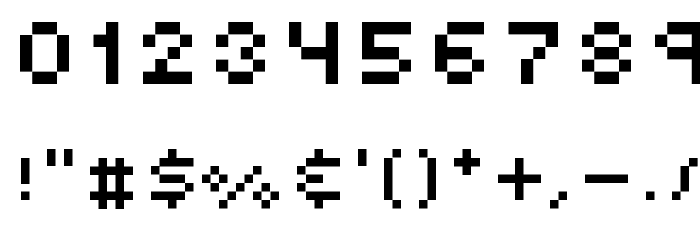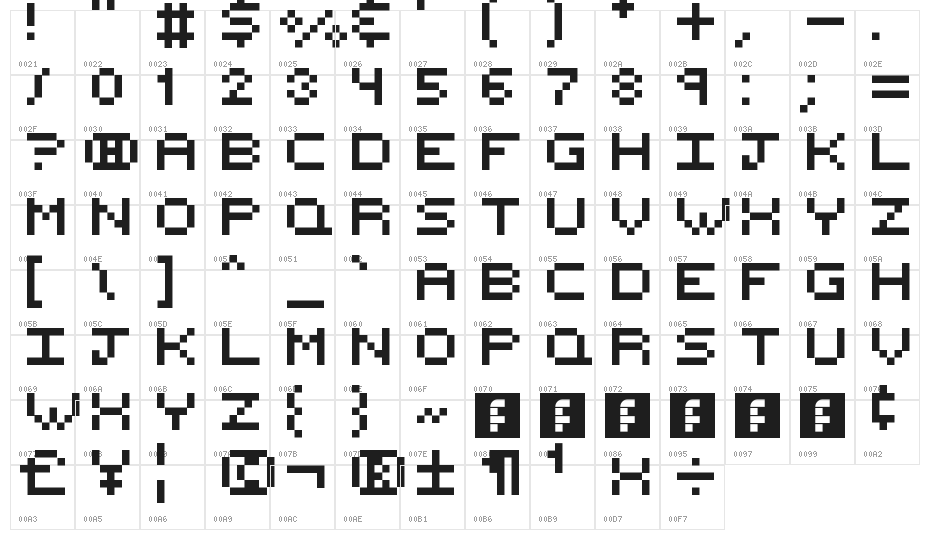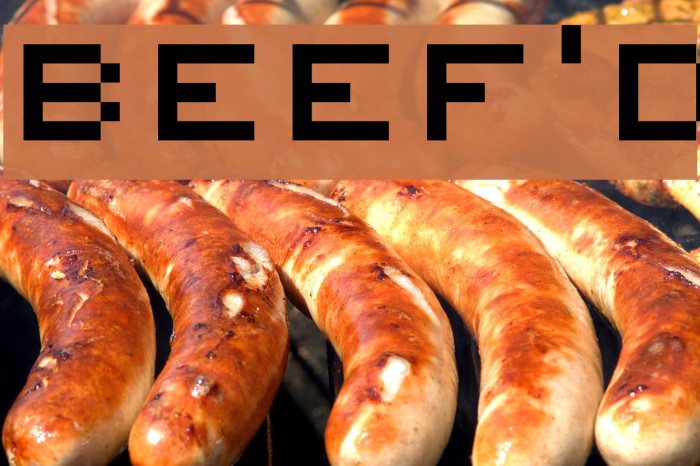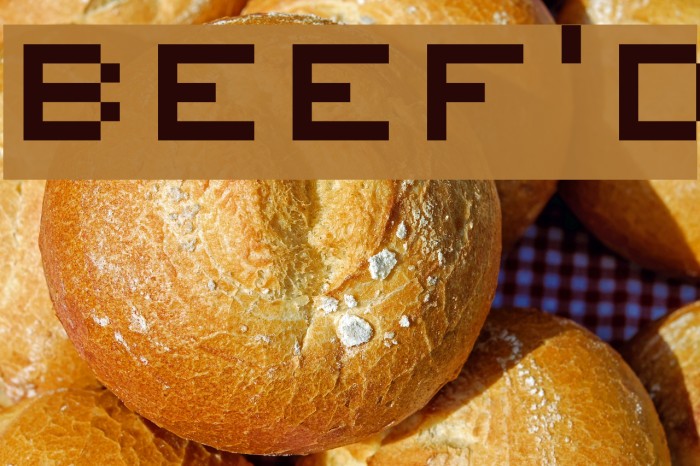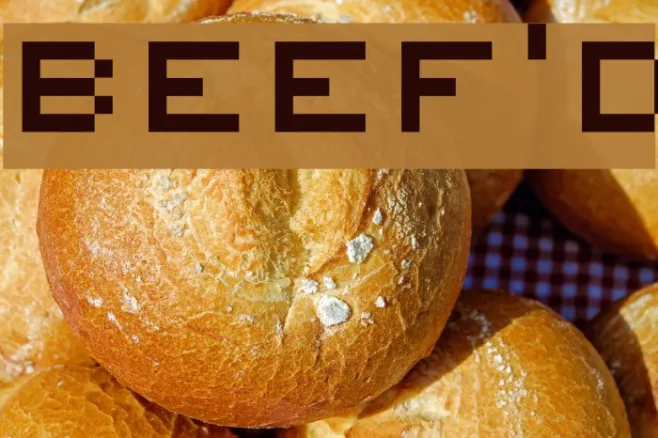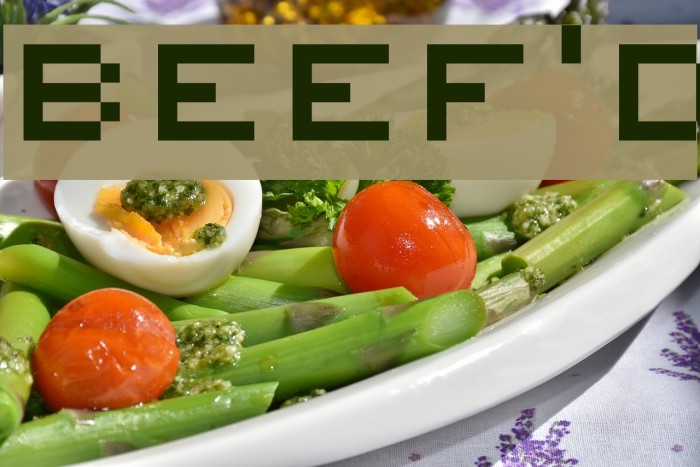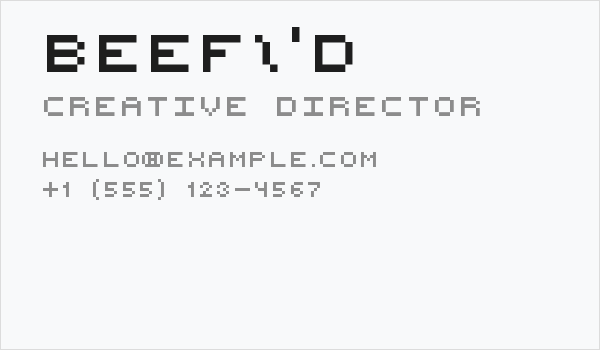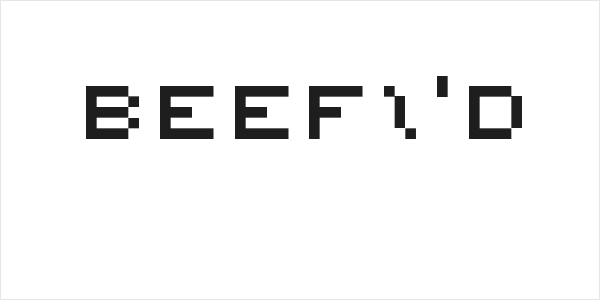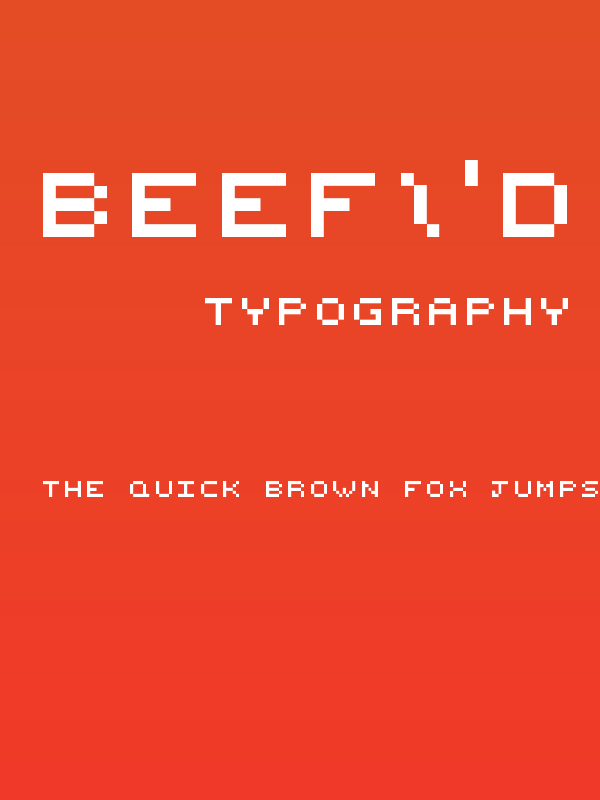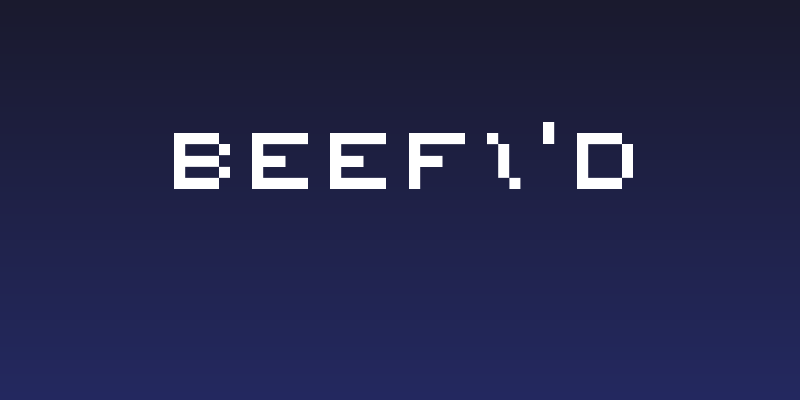
Beef'd Font
Beef'd Description
This font features a pixelated, blocky design reminiscent of early digital displays and video games. Each character is constructed with a grid-like pattern, giving it a retro, 8-bit aesthetic. The uppercase and lowercase letters maintain a consistent height, contributing to a uniform and structured appearance. Numbers and special characters follow the same pixelated style, ensuring visual cohesion across all elements. The font's simplicity and geometric shapes make it highly legible, even at smaller sizes, while its nostalgic feel adds a playful and vintage touch to any design.
| Use Case | Logos, Headlines, Digital Art |
| Proposed Projects | Ideal for retro video game designs, digital art projects, and nostalgic branding. |